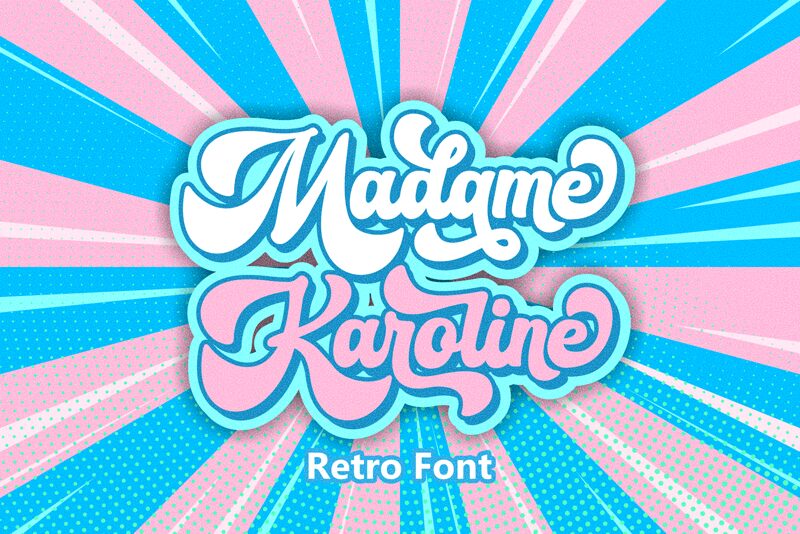
Madame Karoline font which was created by RT Studio is characterised by an attractive retro-brush design. Using bold and loud brush strokes, it creates the feeling of old days and ageless beauty, this makes it exceptional for those who want to put nostalgic moods in their works.
Moreover, the font can be used in various ways such as catching headlines and impactful logos to appealing packaging and custom-made branding materials. Because the typeface has a distinctiveness that emanates uniqueness while at the same time presenting different characters with characteristics associated with cultural heritage sophistication or childlike craftsman images.